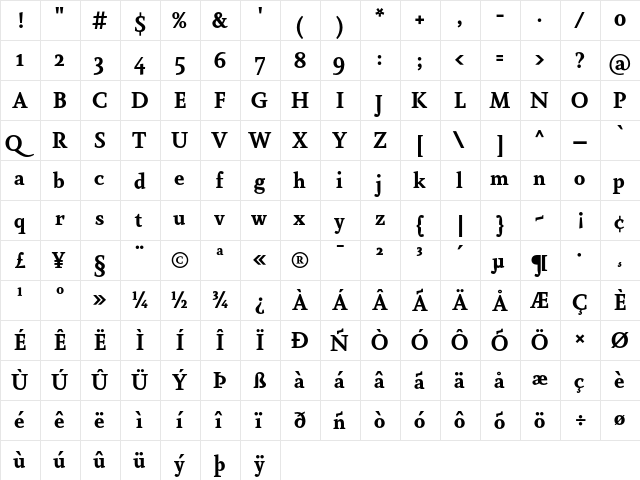
Farrerons Serif Bold
Bold · Josep Patau Bellart Josep Patau Bellart ·
DesignerJosep Patau Bellart
Design Context for Farrerons Serif Typeface
Farrerons Serif carries the refined structure of traditional serif typography, with bracketed terminals and considered proportions that communicate credibility and craft. The heavy weight commands attention and anchors typographic hierarchies.
Pro Tip: Set Farrerons Serif with slightly loose tracking in headlines to let each letterform's detail read clearly at display sizes.